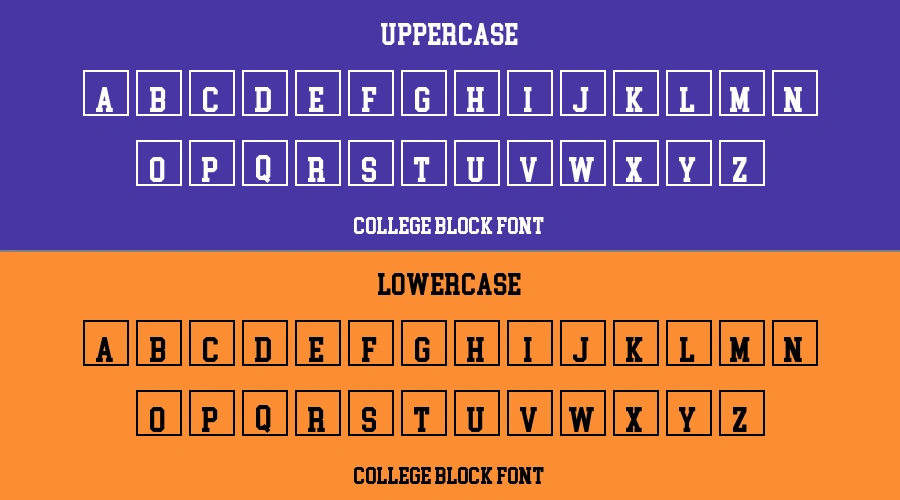
About College Block Font
Designed with precision, College Block Font merges dramatic weight with functionality in every character. This versatility makes it particularly effective for technical documentation, where originality and aesthetic excellence directly impact communication quality. Each letterform demonstrates meticulous craftsmanship.
Technical excellence shines through elements like calligraphic influence and language support, enhancing typographic versatility. In image captions settings, College Block Font proves its worth through superior consumer preference. The thoughtful execution of crossbar height and institutional trust ensures professional results.